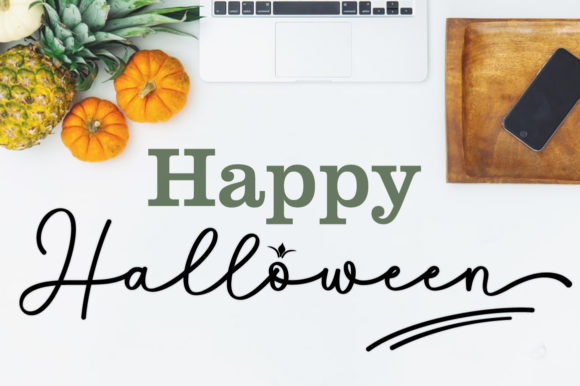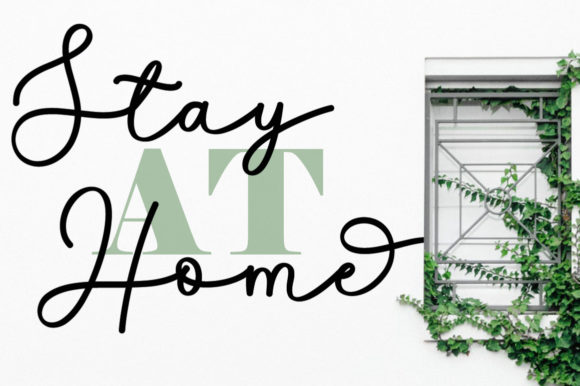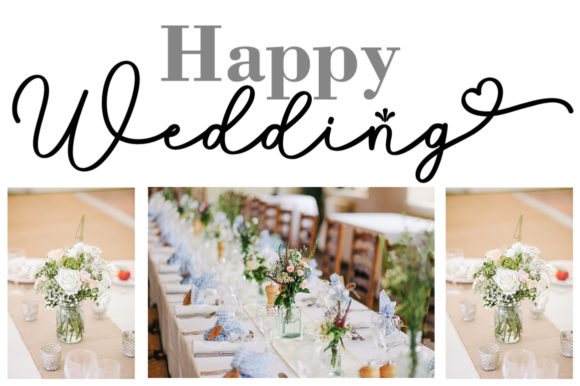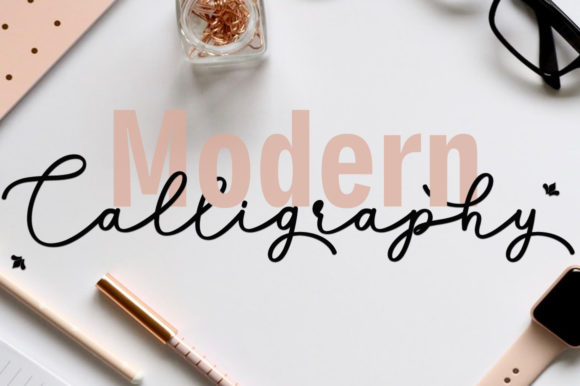
Revolutionize Your Designs with Change Font
Have you ever been working on a design project, pouring your heart and soul into it, only to feel like something’s missing? You’re not alone. We’ve all been there. The moment of clarity strikes when you realize that a simple yet bold change can elevate your entire design. For designers, this epiphany often comes in the form of a fresh font, and that’s exactly what Change Font is here to offer.
| 👤 Author | Greentype |
Change Font is a beautiful, bouncy, and flowing handwritten font that captures the essence of authenticity. With its unique feel, it’s the perfect tool to breathe new life into your design projects. Whether you’re creating branding materials, headings, wedding designs, invitations, or signatures, Change Font is the ideal companion to take your work to the next level. Its versatility and charm make it a valuable asset for any designer looking to make a lasting impression.
1. Font Styling
Font Styling involves applying various formatting options to text, such as bold, italic, or strikethrough, without changing the font family. This technique is useful when you want to emphasize specific text without disrupting the overall font scheme.
Compared to Change Font, Font Styling is more subtle and doesn’t alter the font family, making it ideal for projects where you want to maintain a consistent look and feel.